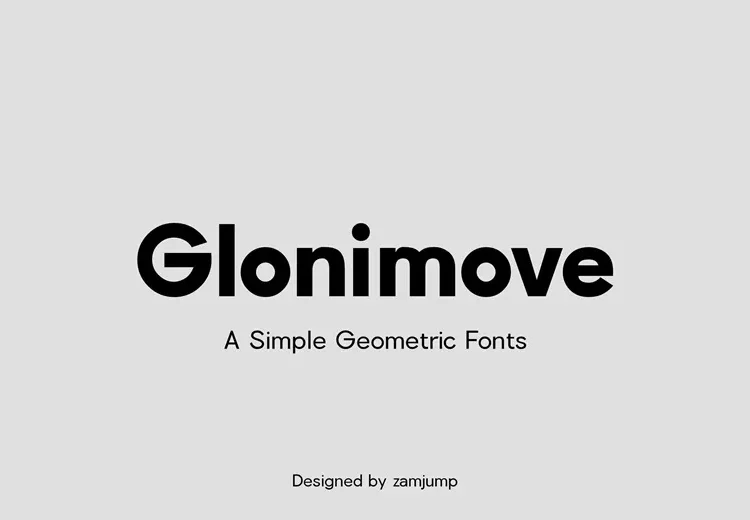
Glonimove Font
Glonimove Font is an innovative sans serif typeface that elegantly marries simplicity with sophistication. Designed with geometrical precision, it showcases clean lines and a minimalistic aesthetic, making it an ideal choice for a wide range of design projects. Whether you’re crafting a modern brand identity or developing promotional materials, Glonimove ensures clarity and style in every application.
This font stands out with its distinctive and sleek profile, imbuing any project with a touch of avant-garde flair. From branding and advertising to signage and print, Glonimove adapts effortlessly to various contexts, making it a versatile tool in any designer’s arsenal. Its modern vibe not only captivates but also enhances the visual narrative of your work, ensuring your message resonates with your audience.
What sets Glonimove apart is its harmonious balance between form and function. While its design is striking and contemporary, it maintains excellent legibility, allowing your content to shine without overwhelming viewers. This makes it an excellent choice for both digital platforms and printed materials, providing a seamless user experience across all mediums.